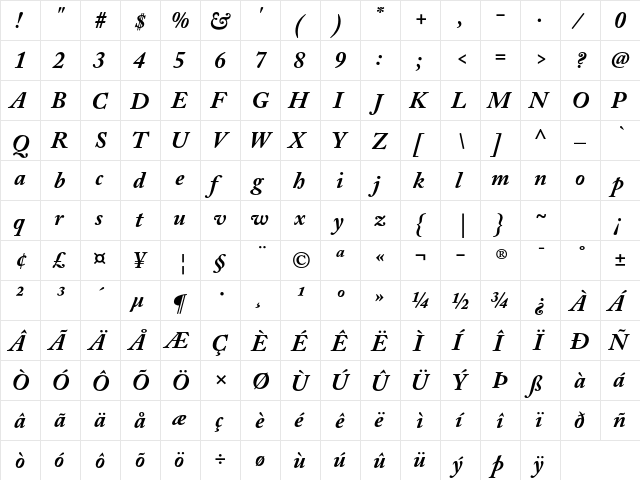
Adobe Caslon Pro Bold Italic
| Designer | Carol Twombly |
Design Context for Adobe Caslon Pro Typeface
Adobe Caslon Pro offers clean, dependable letterforms without strong stylistic allegiance, making it a practical choice for designers who need flexibility. The dynamic lean of this cut emphasises speed and emphasis in any layout. The heavy weight commands attention and anchors typographic hierarchies.
Pro Tip: Use Adobe Caslon Pro for emphasis, pull quotes, and subheadings where its slanted energy can add rhythm to the layout.